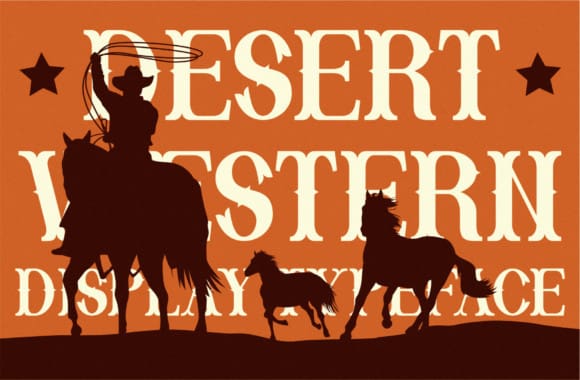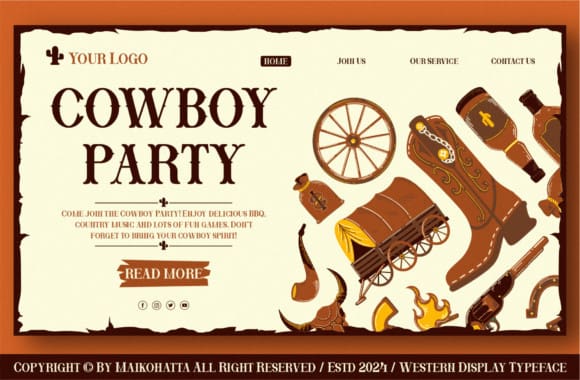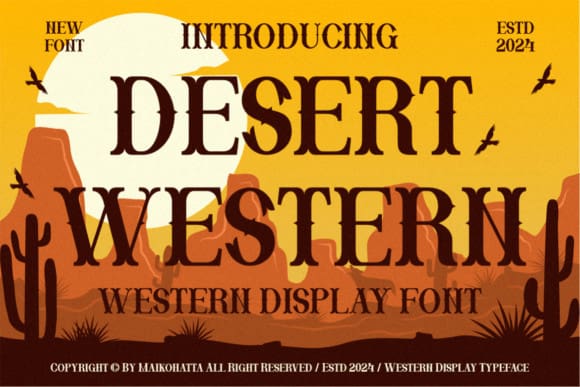
Desert Western Font
Desert Western Font – Western Display: Step into the wild, dusty world of the old West! Explore rugged landscapes, dusty trails, and the iconic spirit of cowboy life. With cacti, tumbleweeds, and wide-open skies, immerse yourself in the adventure of the frontier. Saddle up for a journey through the heart of the desert, where every sunset tells a story of courage and resilience.